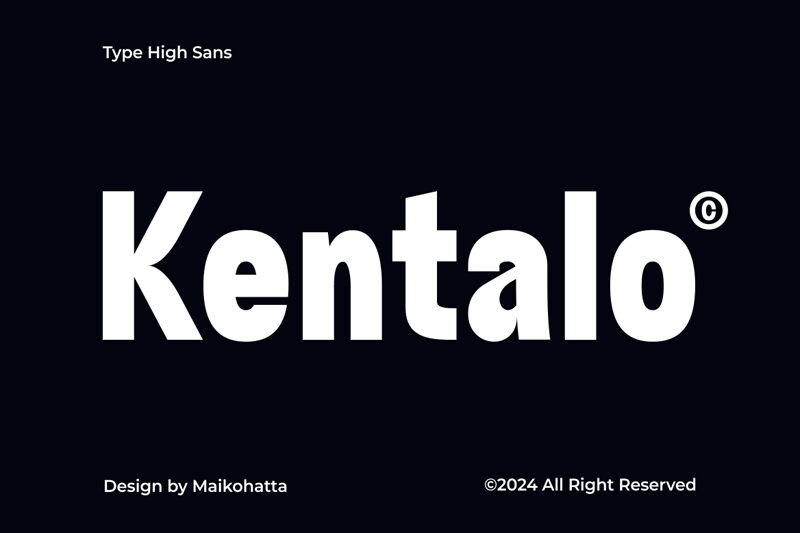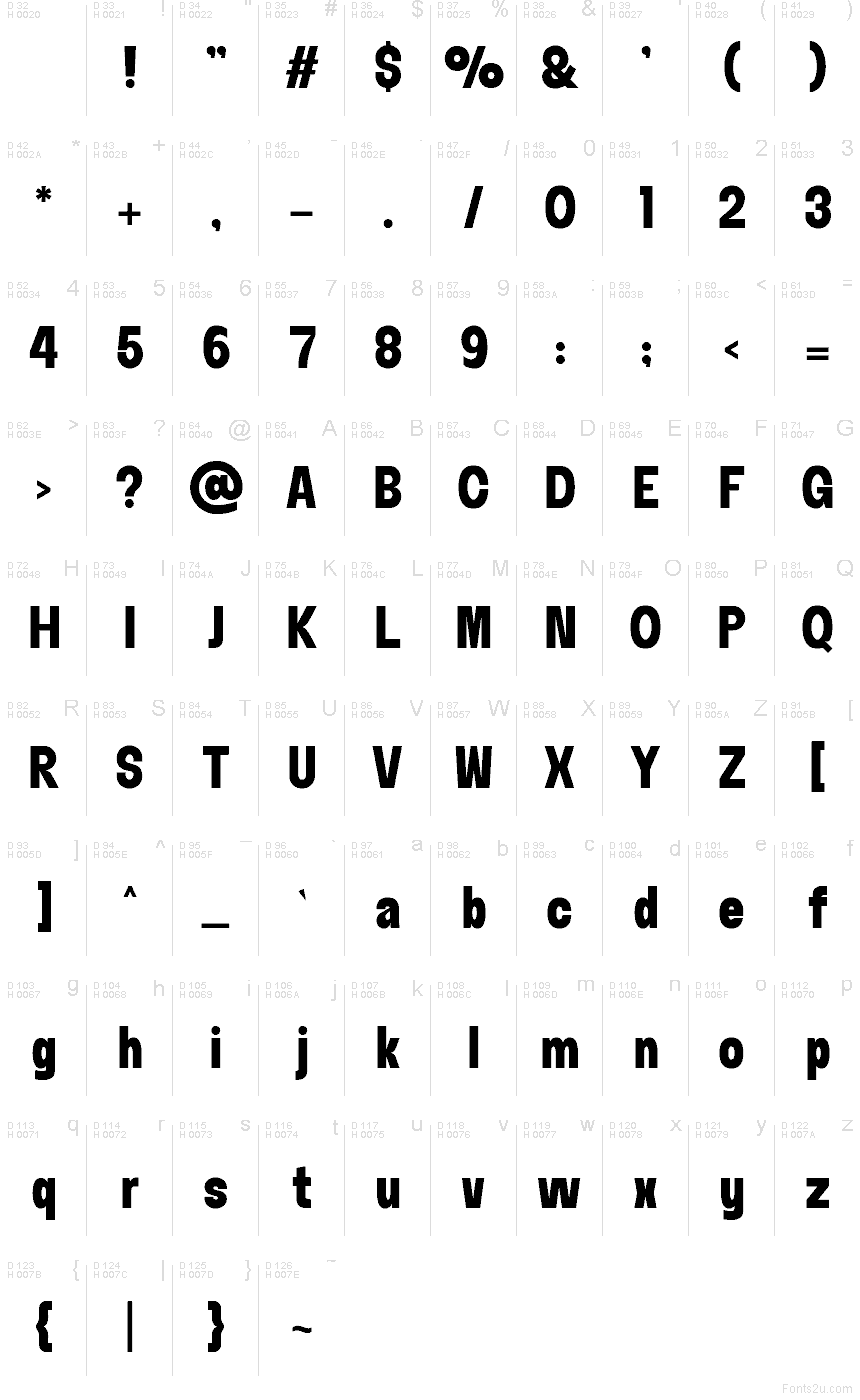
Kentalo
Kentalo font by Gilang Ternadho of Maikohatta is a free bold sans serif typeface with a solid, ink-heavy presence and soft, rounded counters. Its sturdy verticals and slightly compact spacing pack a punch in tight layouts, while the smooth curves keep it from feeling harsh or mechanical. The result is a headline font that hits hard but still feels approachable and human.
Using Kentalo, you get a strong, chunky voice that shines on posters, social media graphics, branding for streetwear or food, eye-catching banners, stickers, and bold packaging. This free font holds up especially well at large sizes where its weight and rhythm can really dominate the page. Try pairing Kentalo with a clean, light grotesque for body copy to balance its blocky, energetic character.